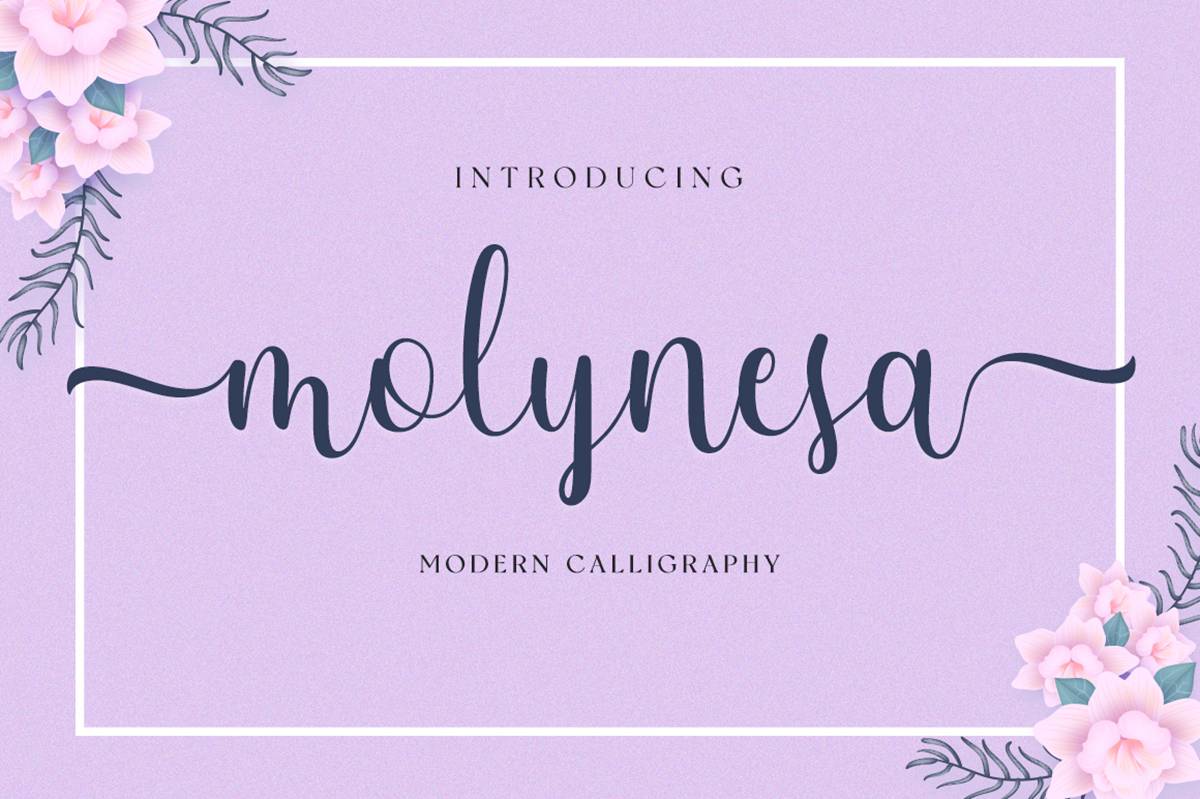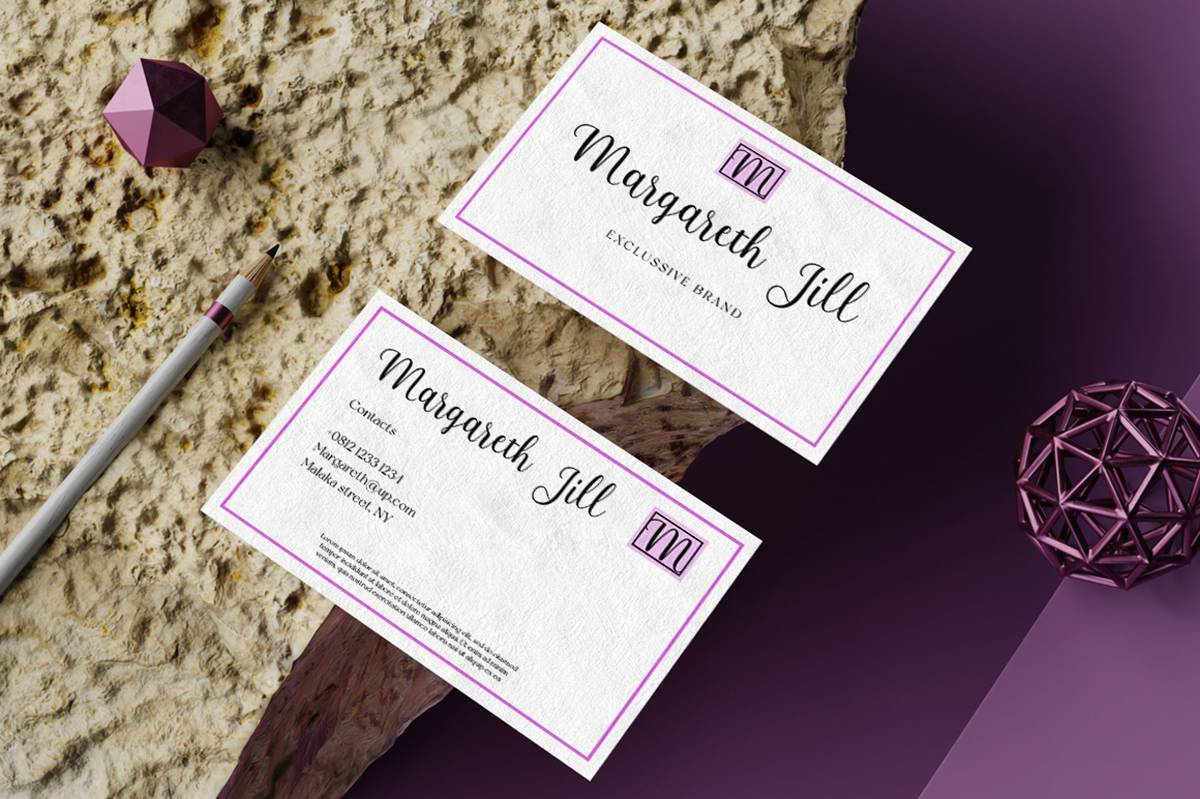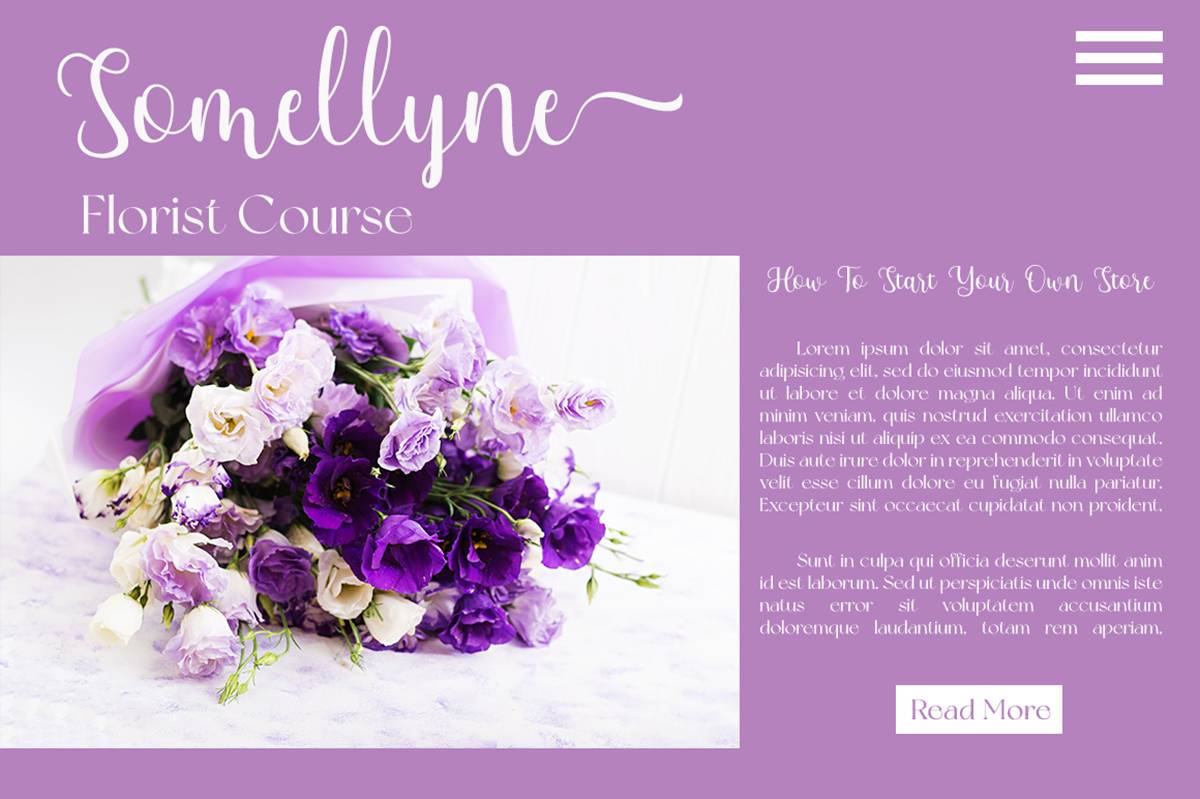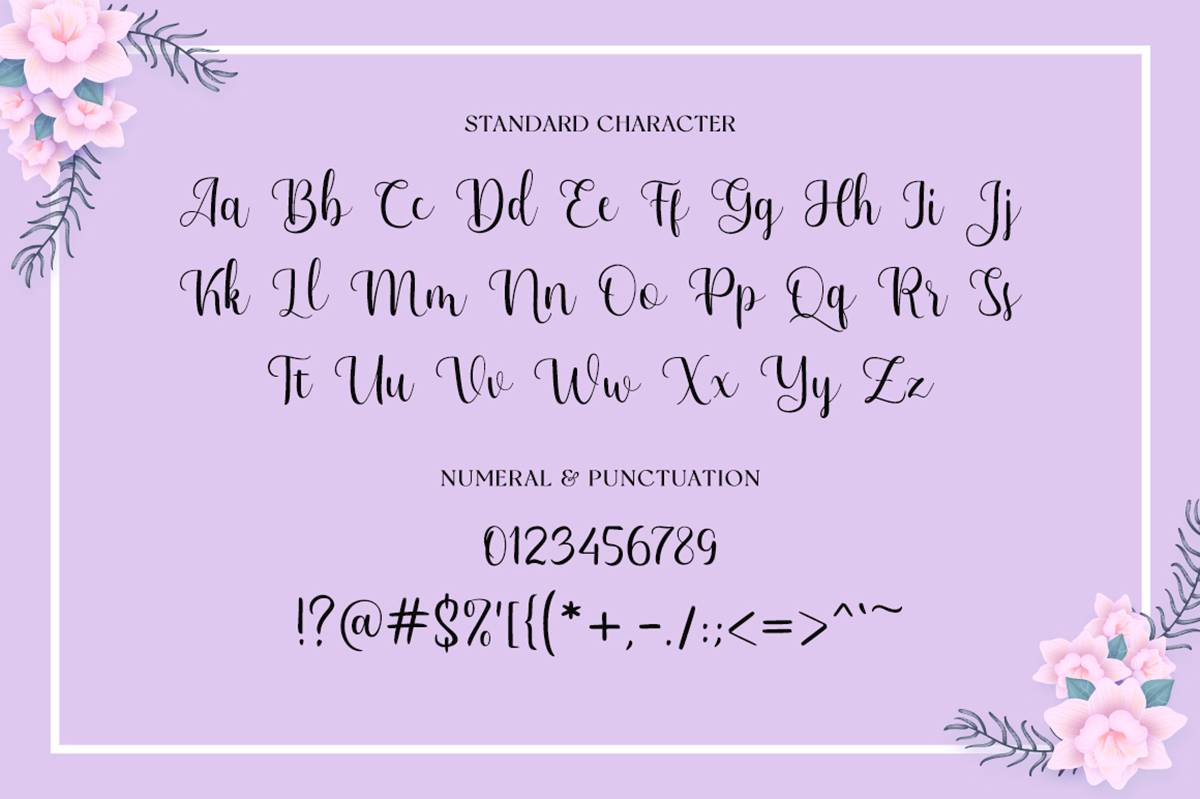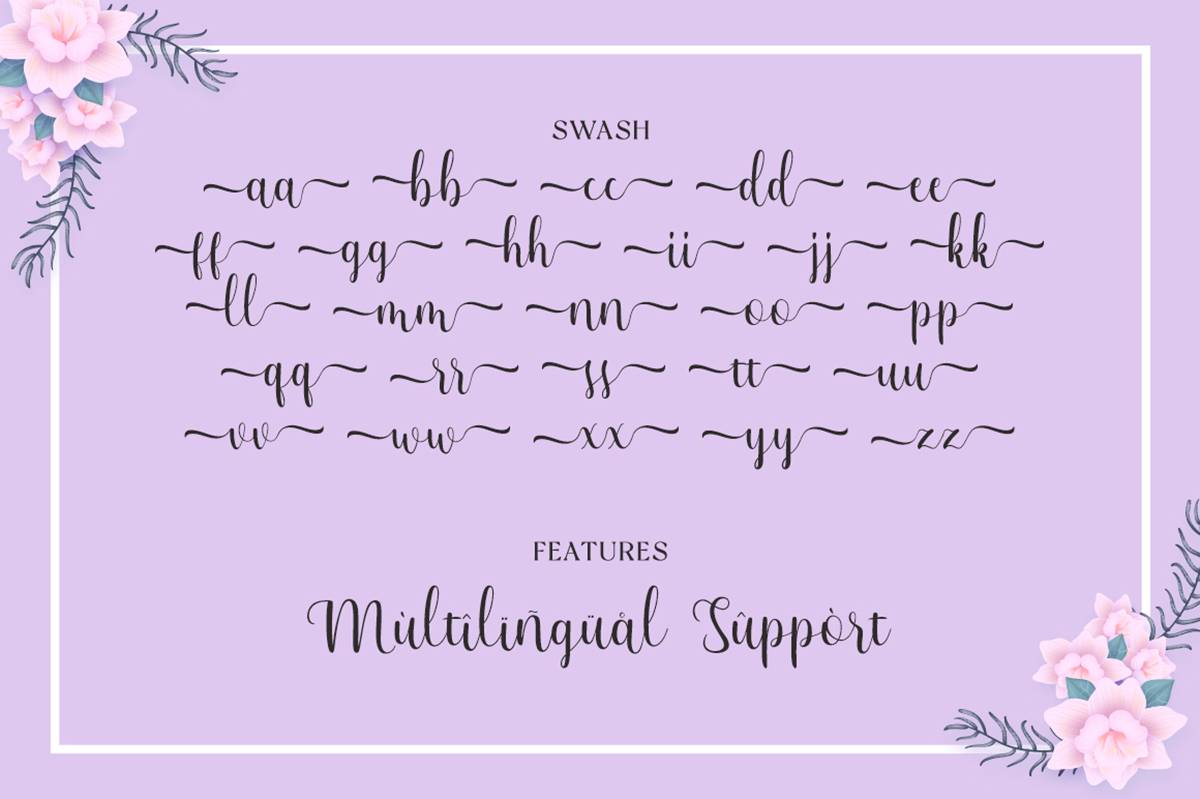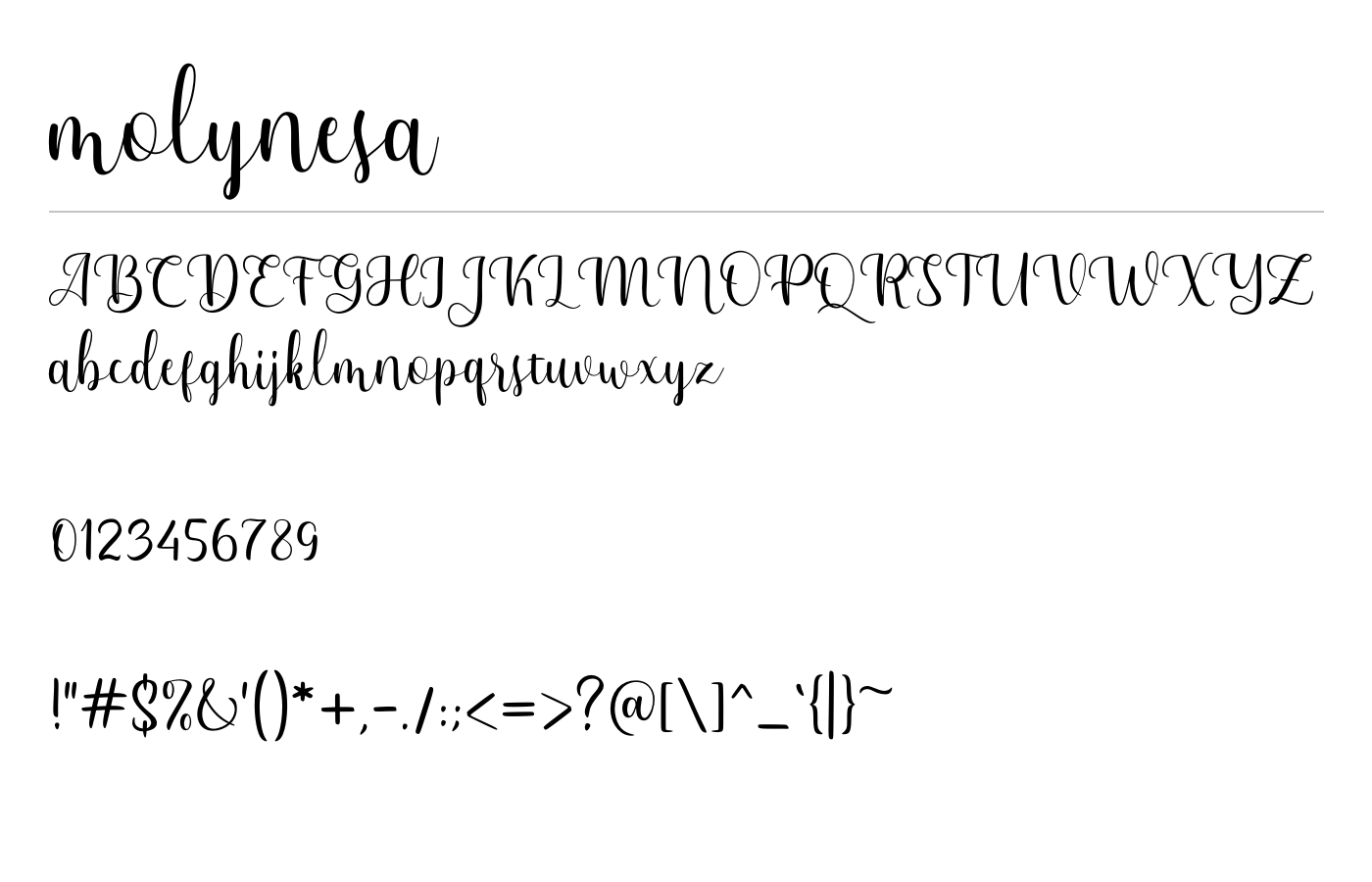
Molynesa is a delicate and elegant script font featuring graceful, flowing strokes with a handwritten feel. Its light, airy letterforms and refined curves make it perfect for feminine branding, invitations, and stylish logos, lending a romantic and sophisticated touch to any design. This font works especially well where a personal, charming, and artistic look is desired.
Molynesa Font